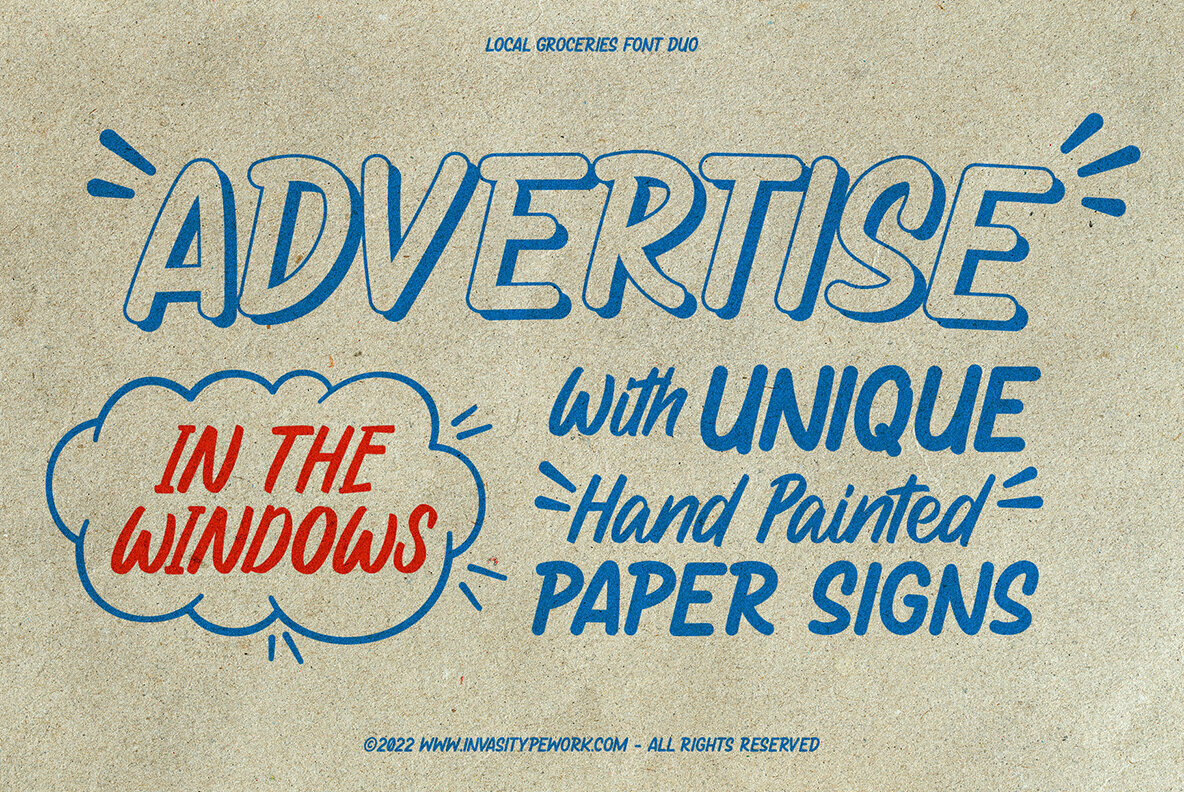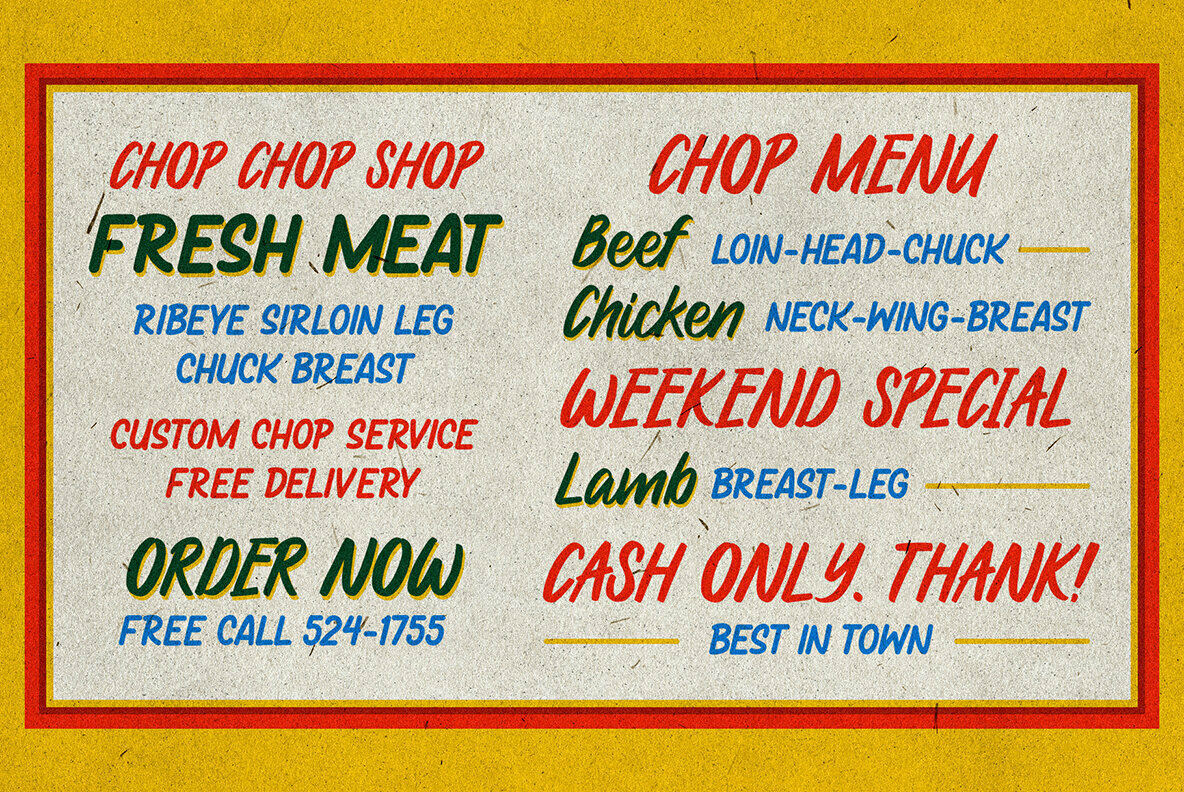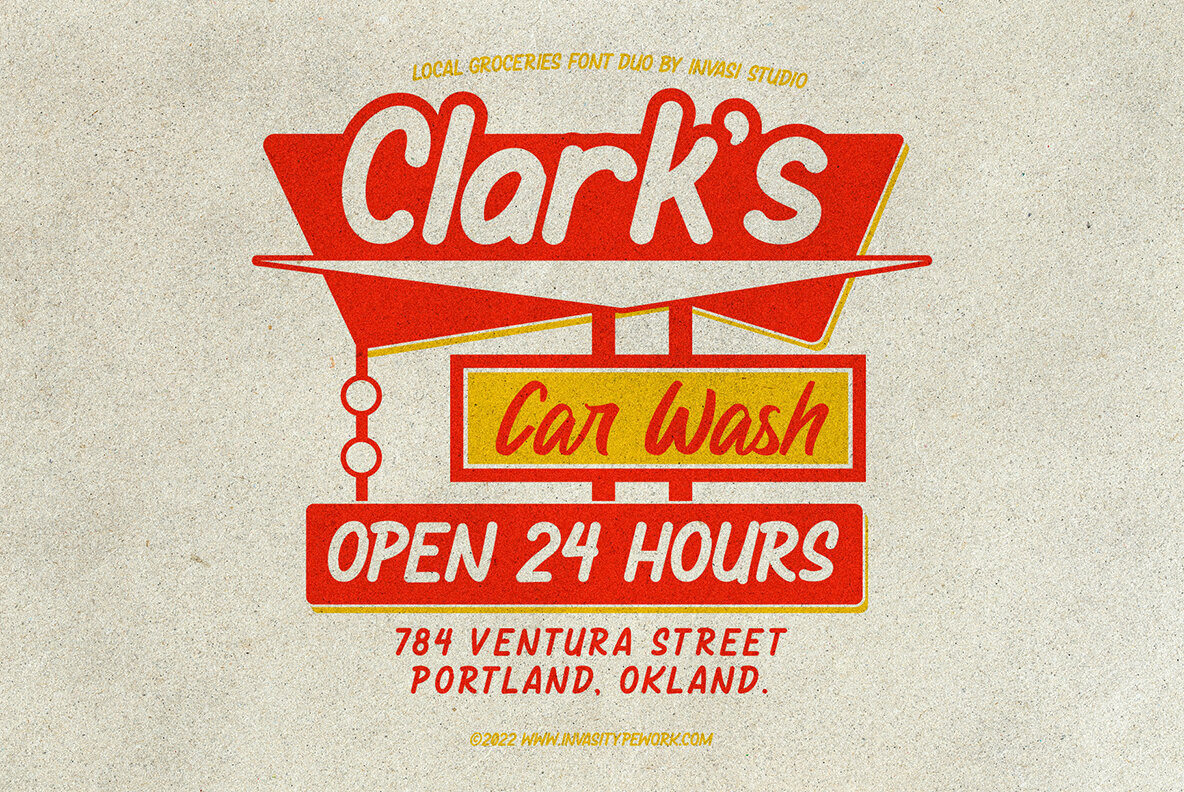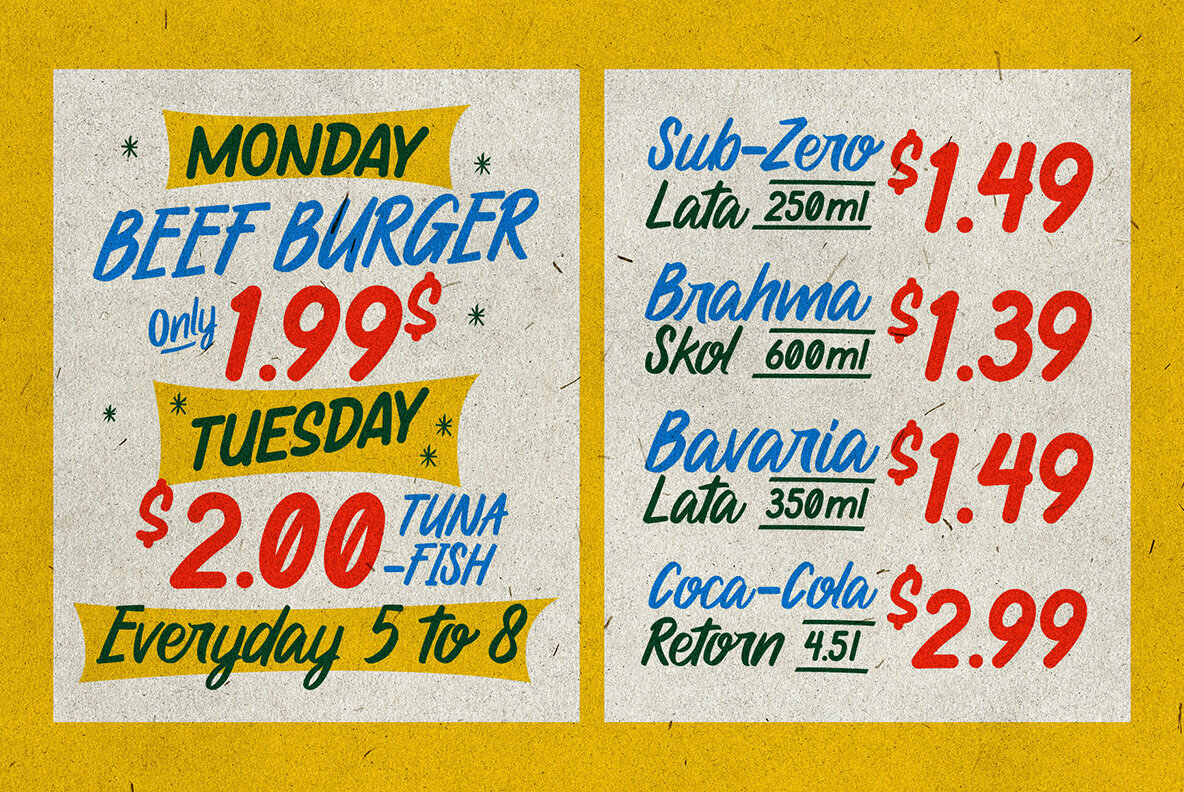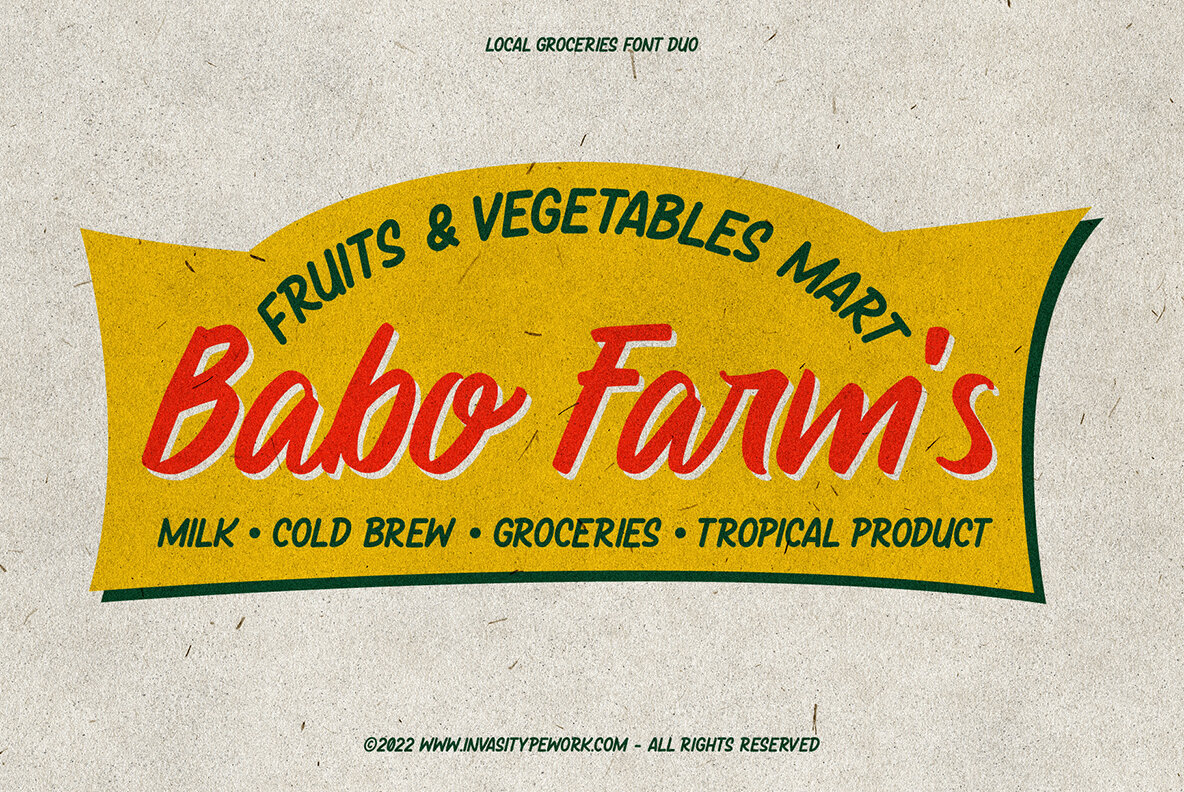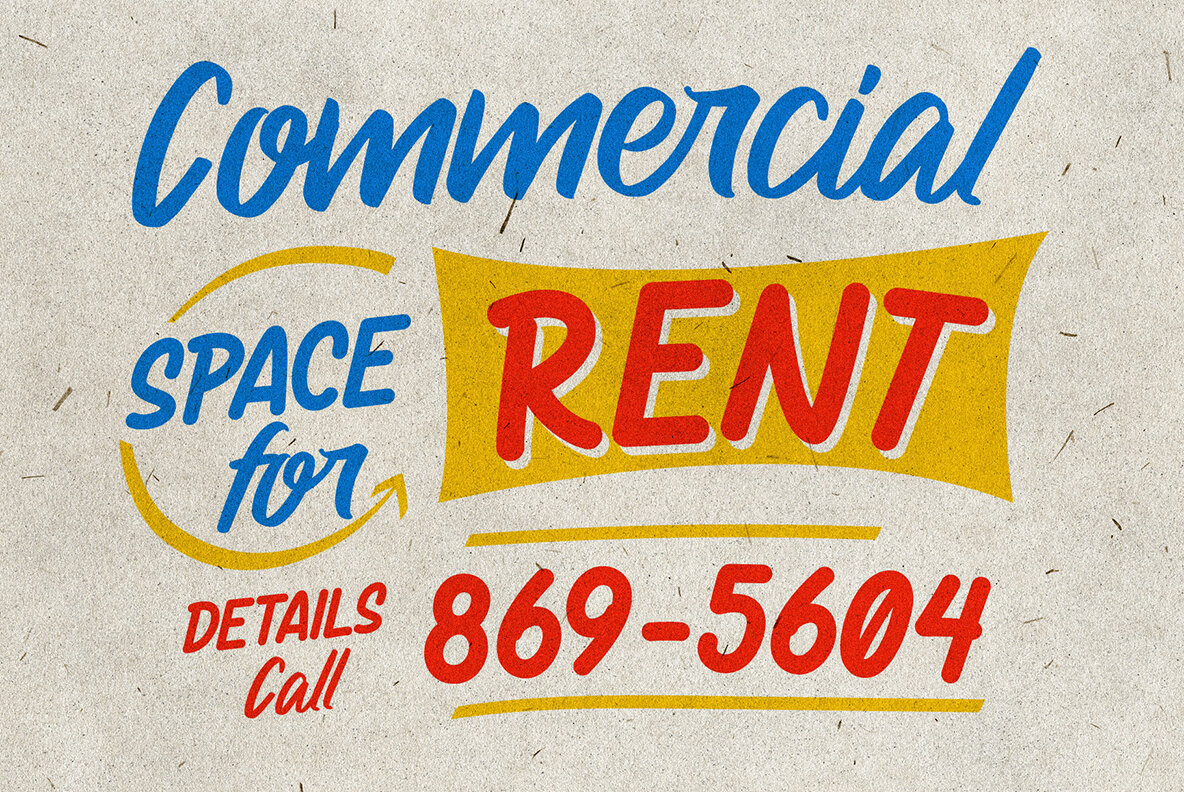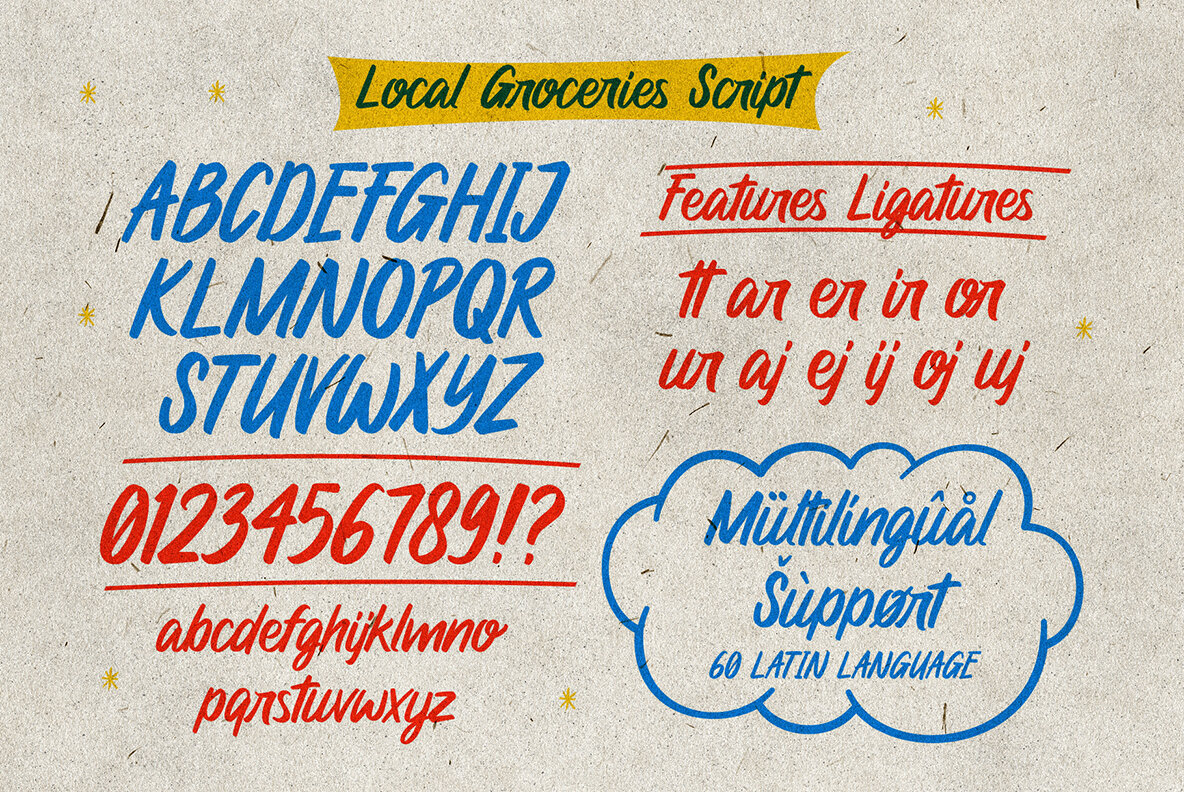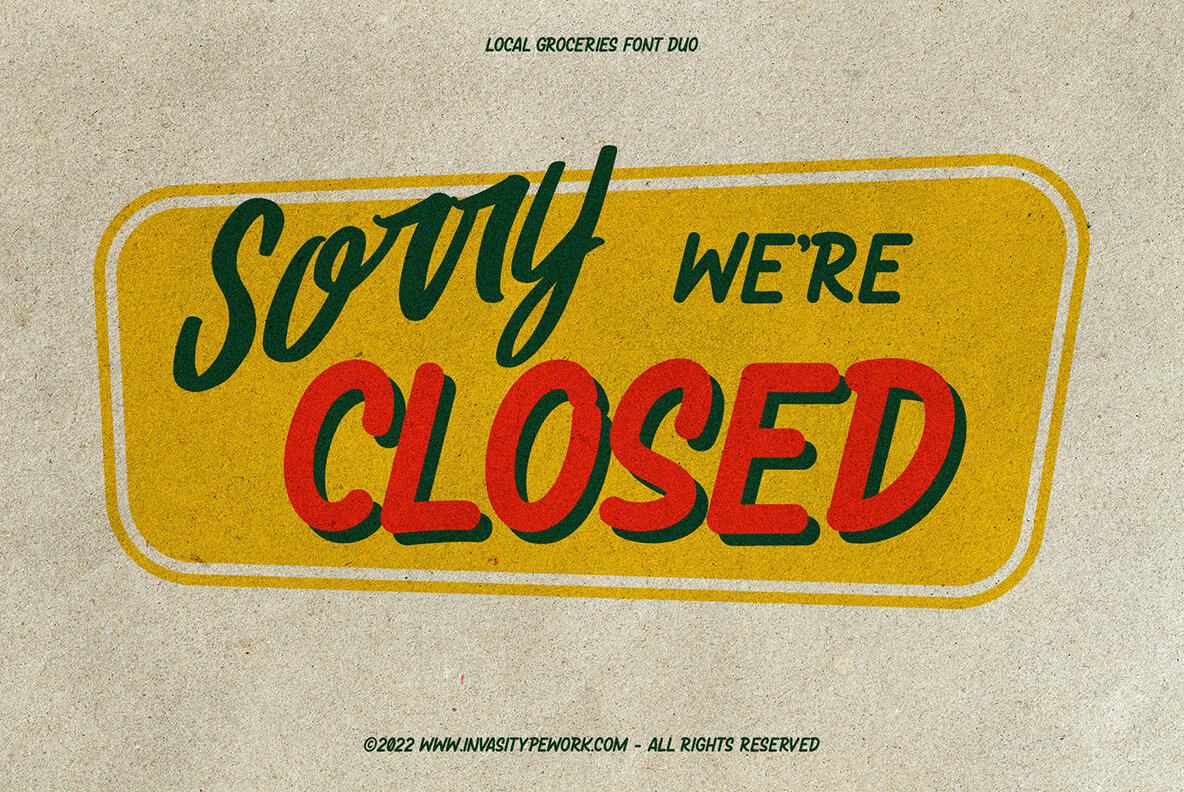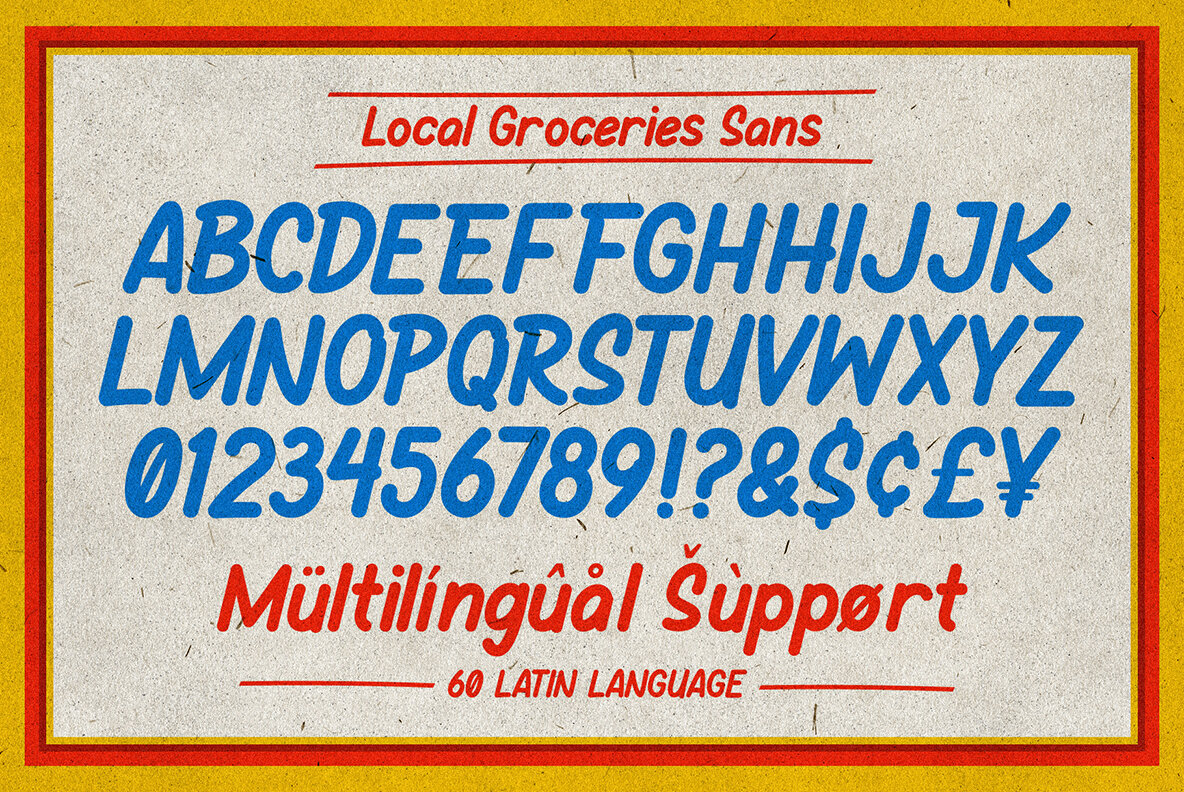
Local Groceries Font Duo
Local Groceries is the perfect font for your next vintage or contemporary marketing campaign. Local grocery comes with a special combination of script fonts that work really well when paired together to create an aesthetically pleasing look on paper!
- Numerals & Punctuation
- Alternates and Ligatures
- Multilanguage Supports 60+ Latin based languages